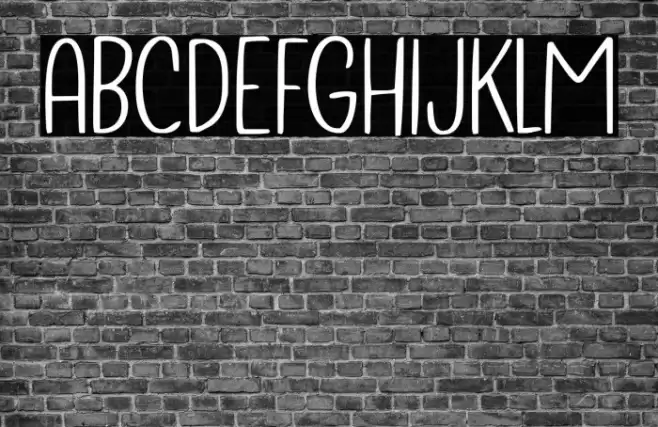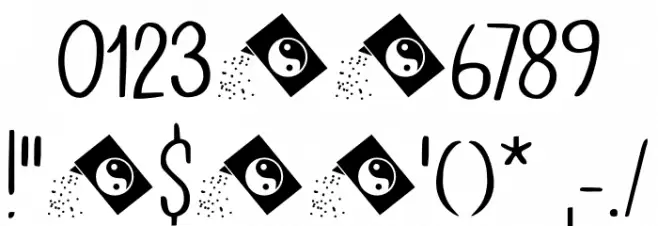
Instant Harmony Lite DEMO Regular Font
Instant Harmony Lite DEMO Regular Description
This font features a playful and slightly whimsical design, characterized by its tall, narrow letterforms and subtle curves. The uppercase letters are uniform in height, while the lowercase letters maintain a consistent baseline with gentle ascenders and descenders. The numerals are rounded and harmonious, complementing the overall style. Special characters are creatively integrated, adding a unique flair. The font's clean lines and balanced proportions make it versatile for various design applications.
A playful, narrow font with subtle curves and balanced proportions from Comic fonts.
- Proposed Projects: Ideal for children's books, playful branding, greeting cards, and creative posters.
- Overall Style: Playful